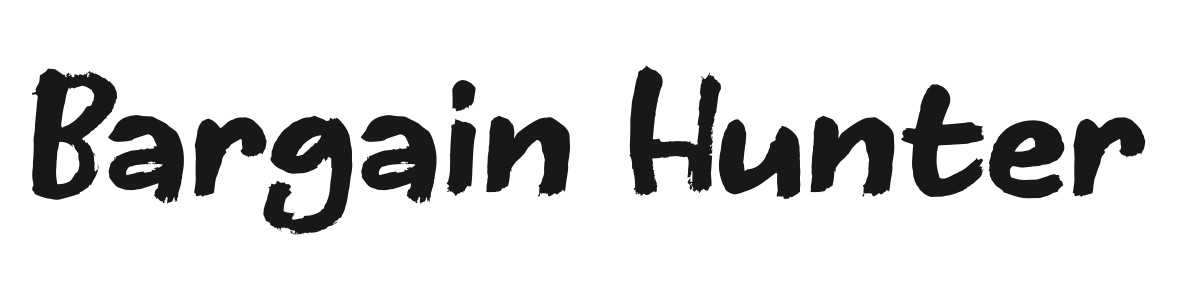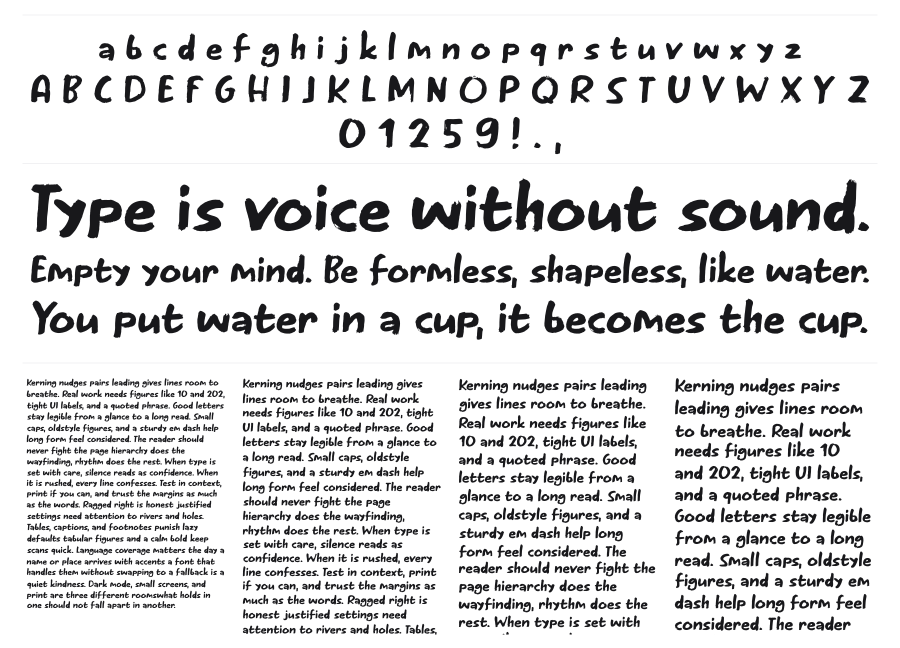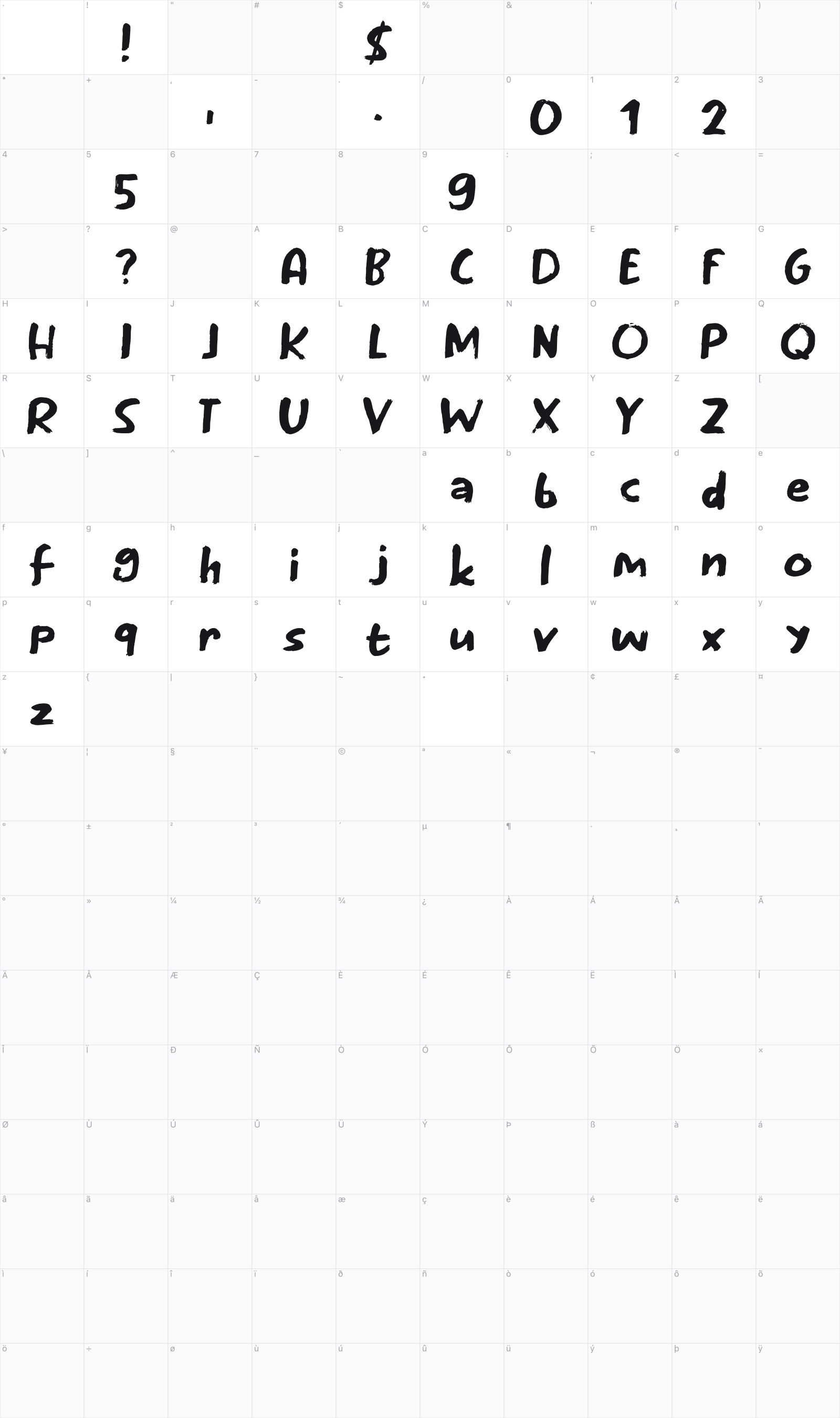
Bargain Hunter
Bargain Hunter is a bold brush script with rough, inky strokes that feel like they were dashed off with a wide marker. The irregular edges and chunky weight give it an honest, handmade energy that reads as energetic without being messy. It suits display headlines, price-tag graphics, and any context that benefits from a no-frills human touch.